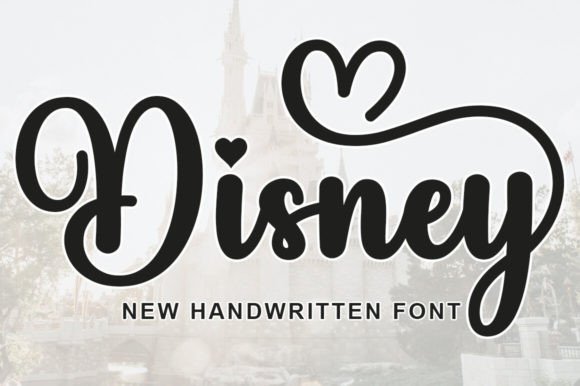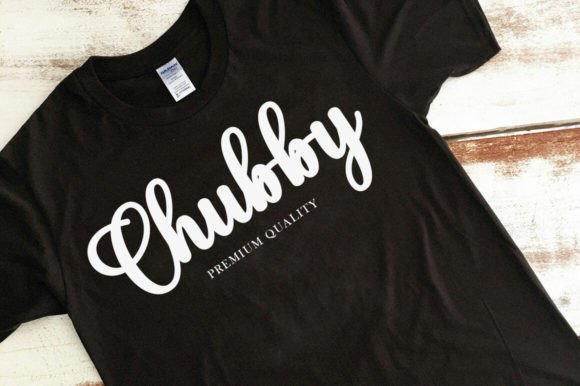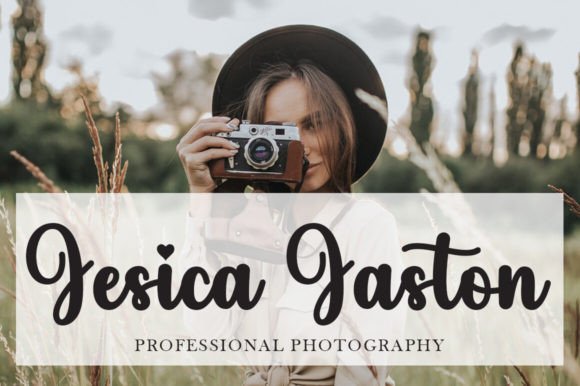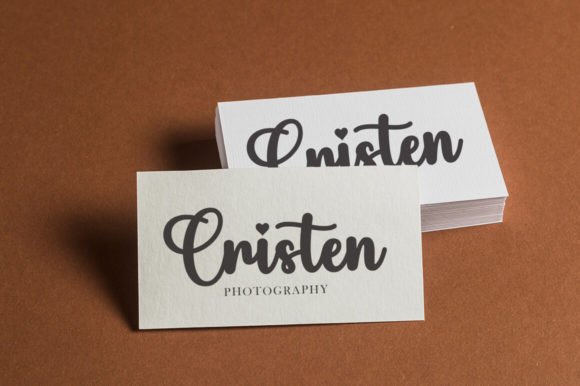
Disney Font
Disney is a sweet and friendly handwritten font that wraps your designs in a warm embrace of adorability. With charming letterforms and an innocent vibe, it infuses a delightful playfulness into your creative projects. Ideal for conveying a lighthearted and endearing aesthetic, Disney adds a sweet and whimsical flair to your expressions.